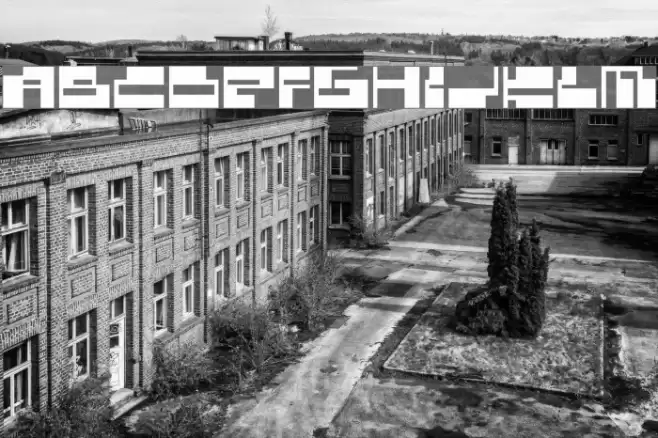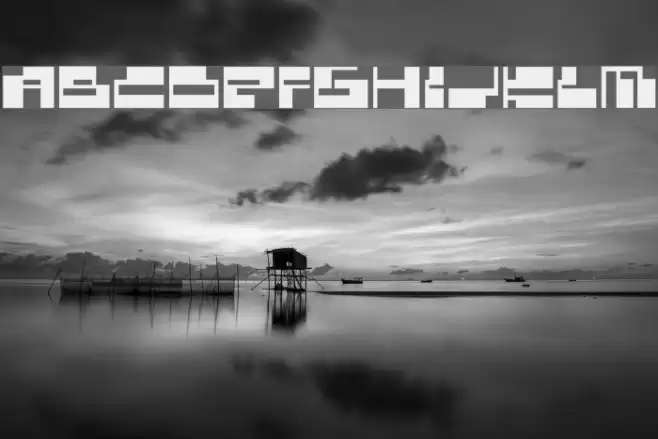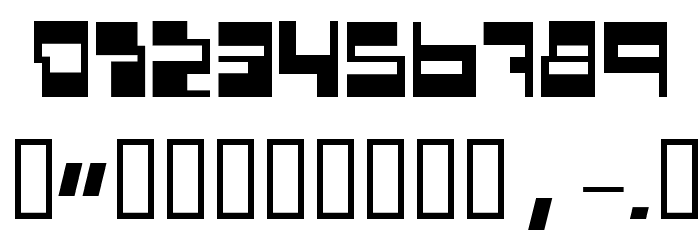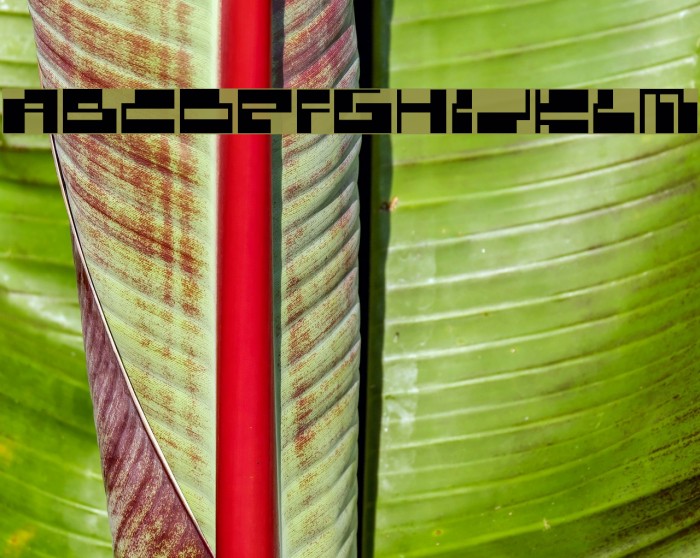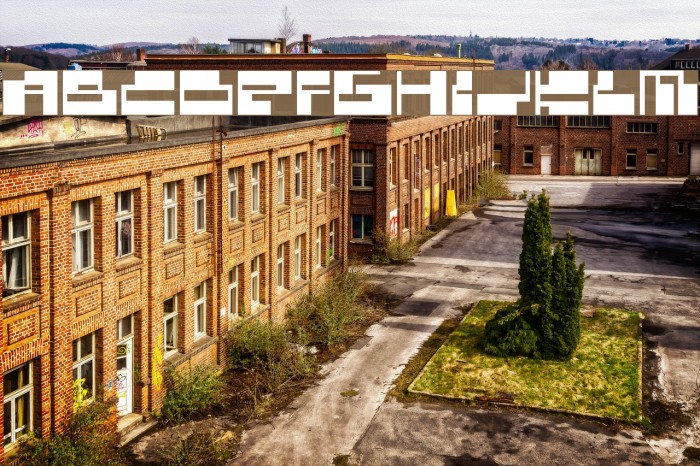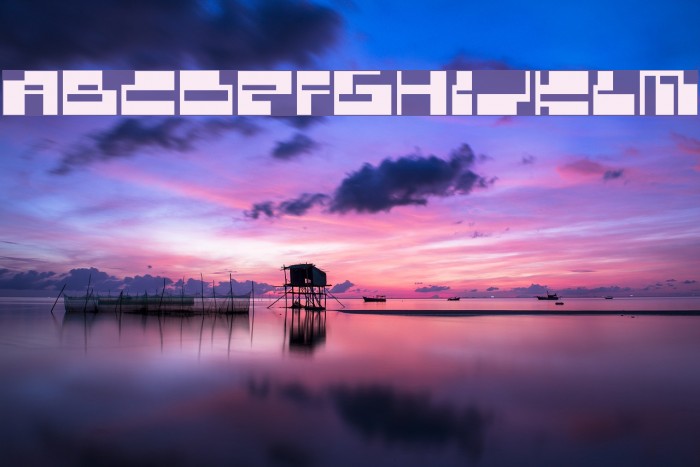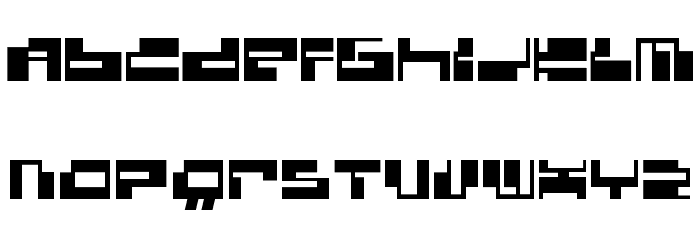
BDConsole Font
BDConsole Description
This font features a bold, geometric design with a distinctly modern and digital aesthetic. Each character is constructed with sharp angles and block-like shapes, giving it a futuristic and tech-inspired look. The uppercase and lowercase letters maintain a consistent style, with minimal curves and a focus on straight lines. Numbers and special characters follow the same design principles, ensuring uniformity across all glyphs. The font's unique style makes it stand out, ideal for projects that require a strong visual impact.
A bold, geometric font with a modern, digital aesthetic from Uncategorized fonts.
- Proposed Projects: Ideal for tech-related branding, video game design, futuristic posters, and digital interfaces.